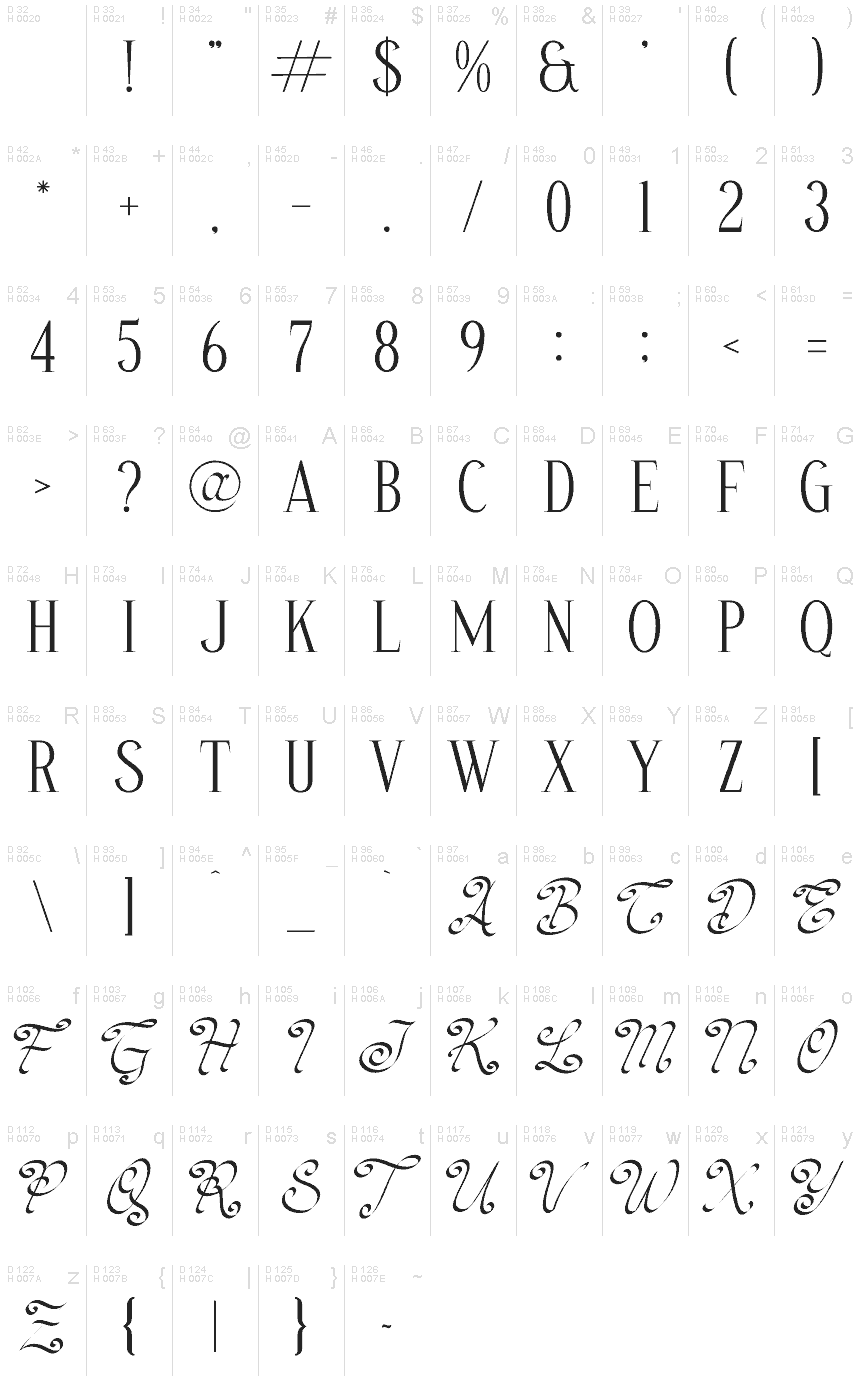
Las Hustle
Las Hustle font by Storytype Studio is an ornate display font with artistic flourishes. It carries a sophisticated mood with an intricate design that has hints of historical influence. It is elegant for making statement headlines and graphics where some decorative elements can add attraction.